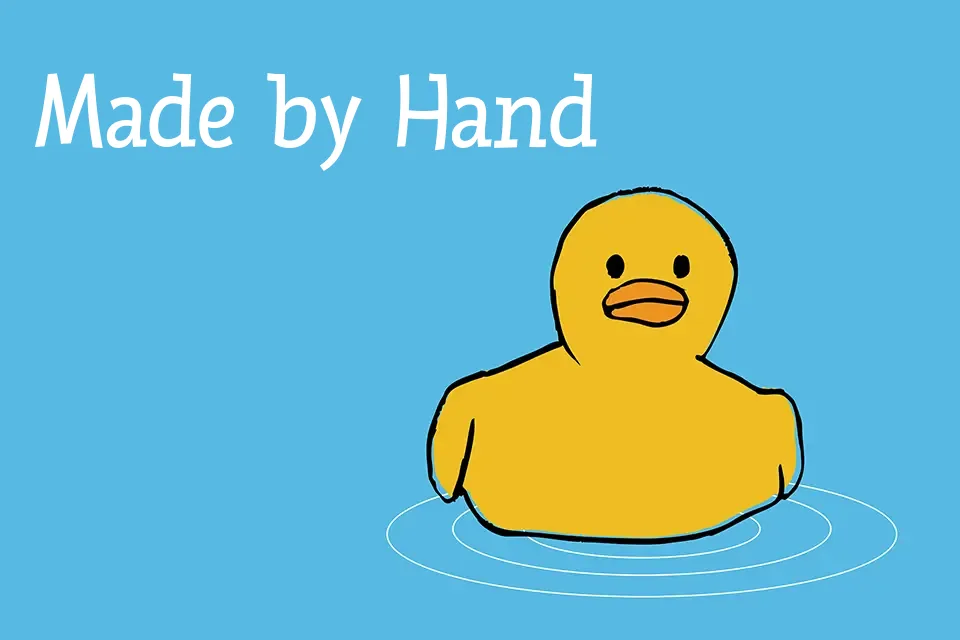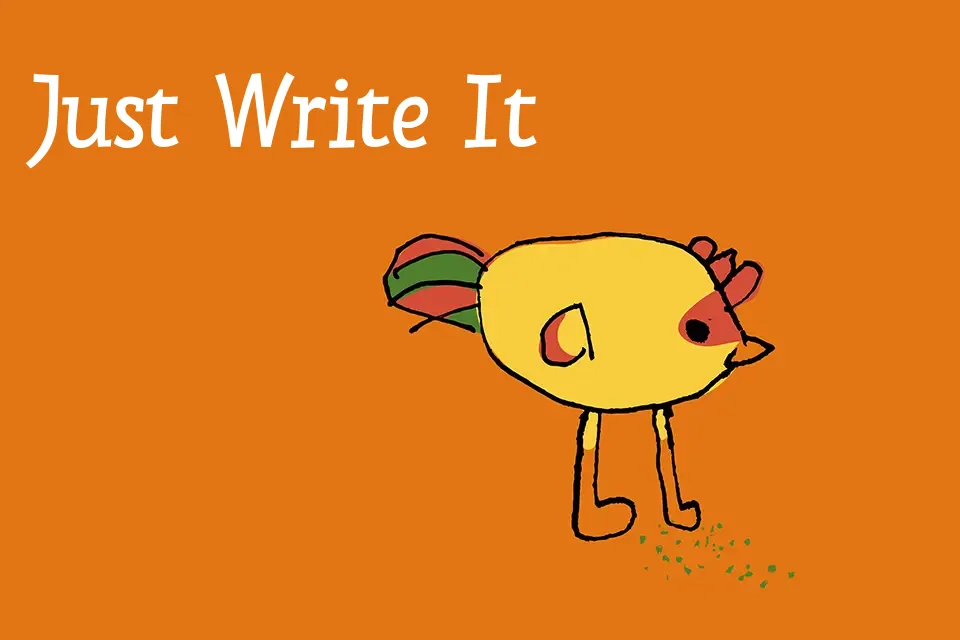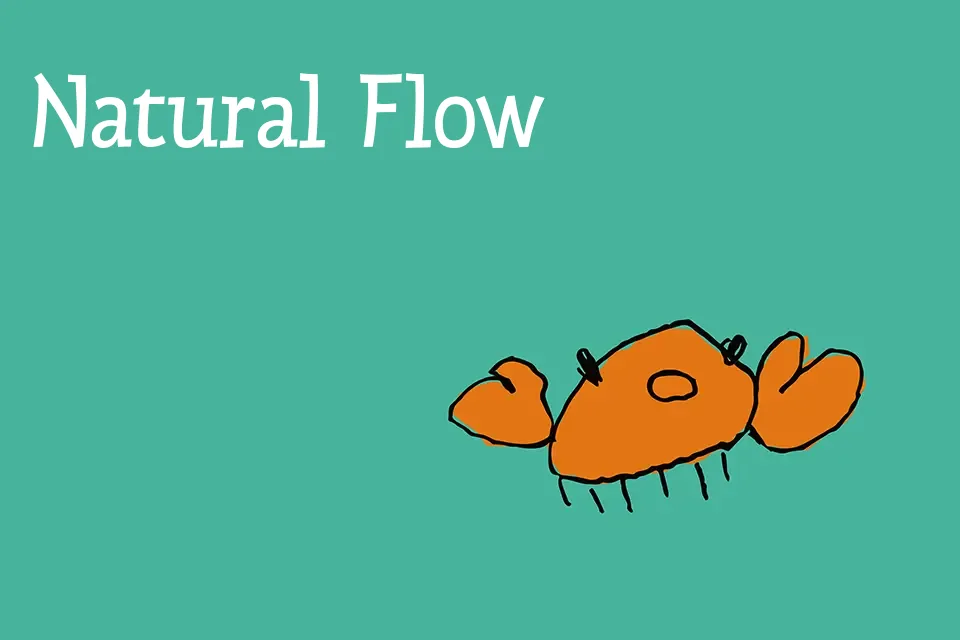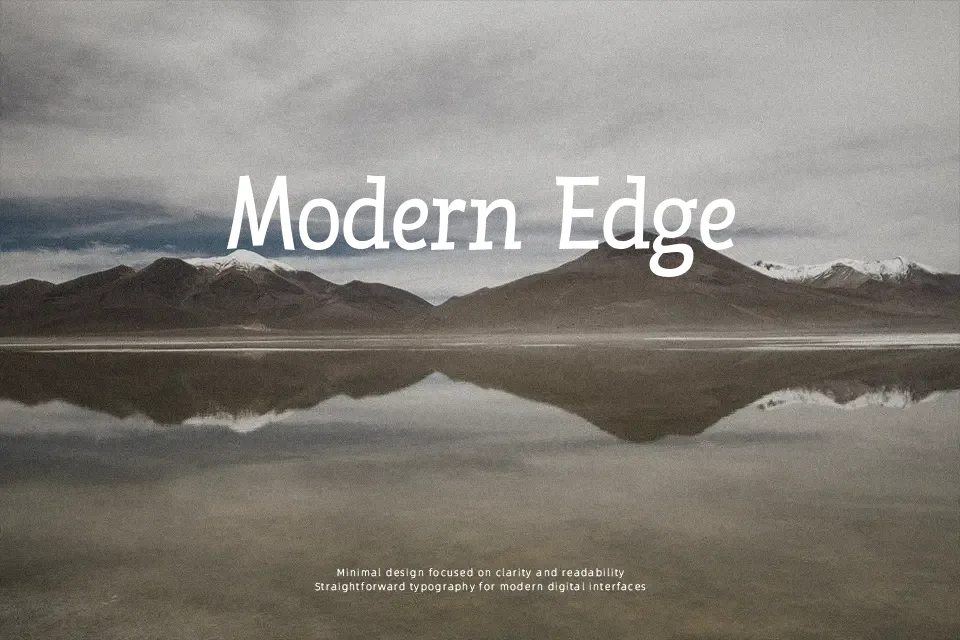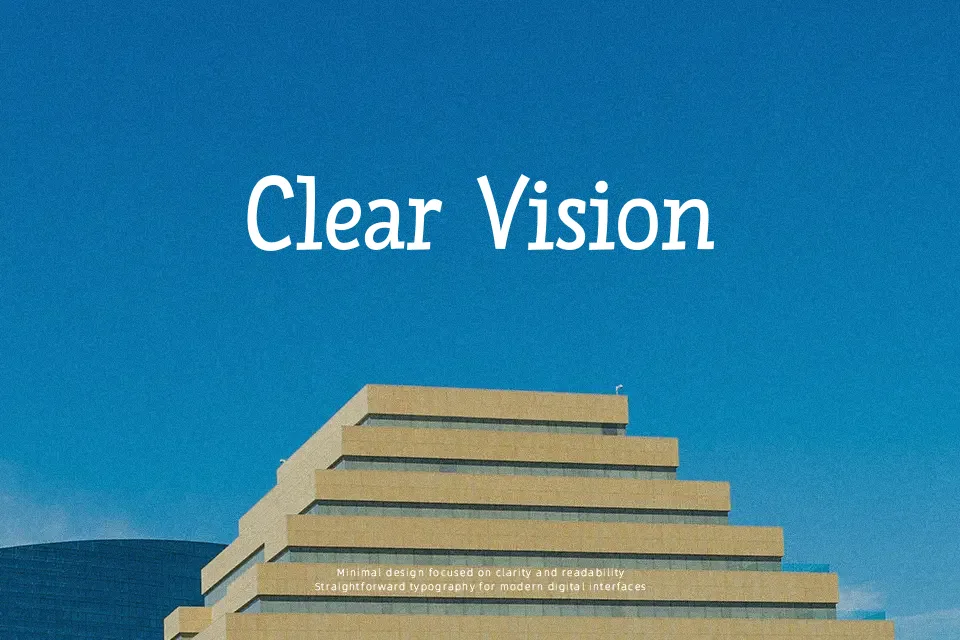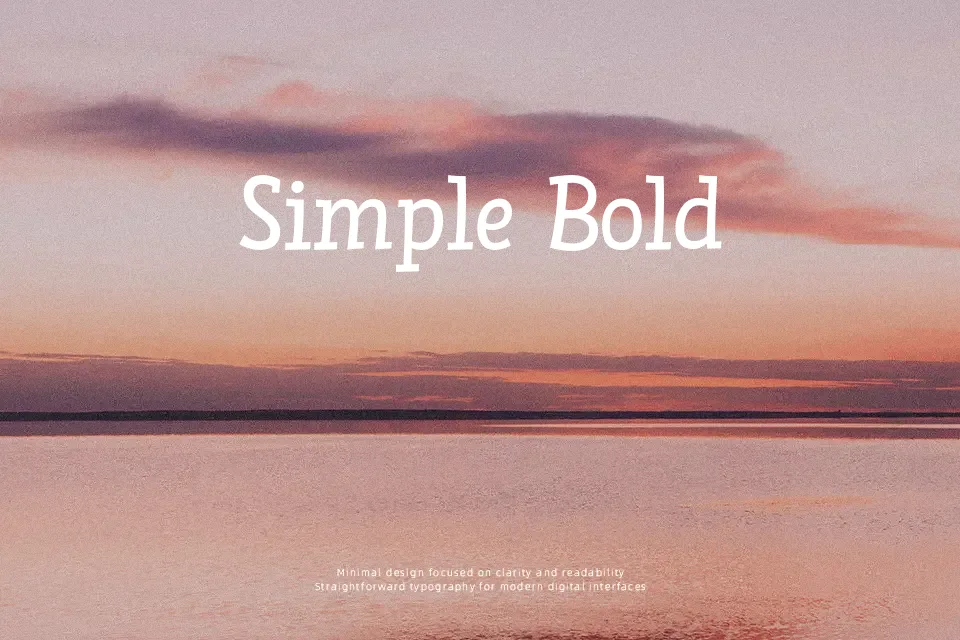
Chispa Font
Chispa Font features expressive hand-drawn letterforms with informal stroke variations and moderately loose spacing that creates an animated rhythm. The upright characters show consistent medium weight with soft corners and dynamic proportions, giving every title an authentic handcrafted feel. Across medium and large display scales, the typeface maintains solid letterform recognition, making it an effective choice for party invitations, craft food branding, and merchandise graphics. However, the irregular contours and informal baseline alignment reduce reading comfort in extended body paragraphs or compact data tables. For standalone headline typography, the balanced character widths ensure each word remains striking and distinct.
Best For: children book covers, event poster titles, craft packaging labels, playful apparel graphics
Not Ideal For: continuous body text, dense technical documentation, corporate legal contracts, small user interface labels
Perfect for headline, kids, and logo, with a creative and decorative style.